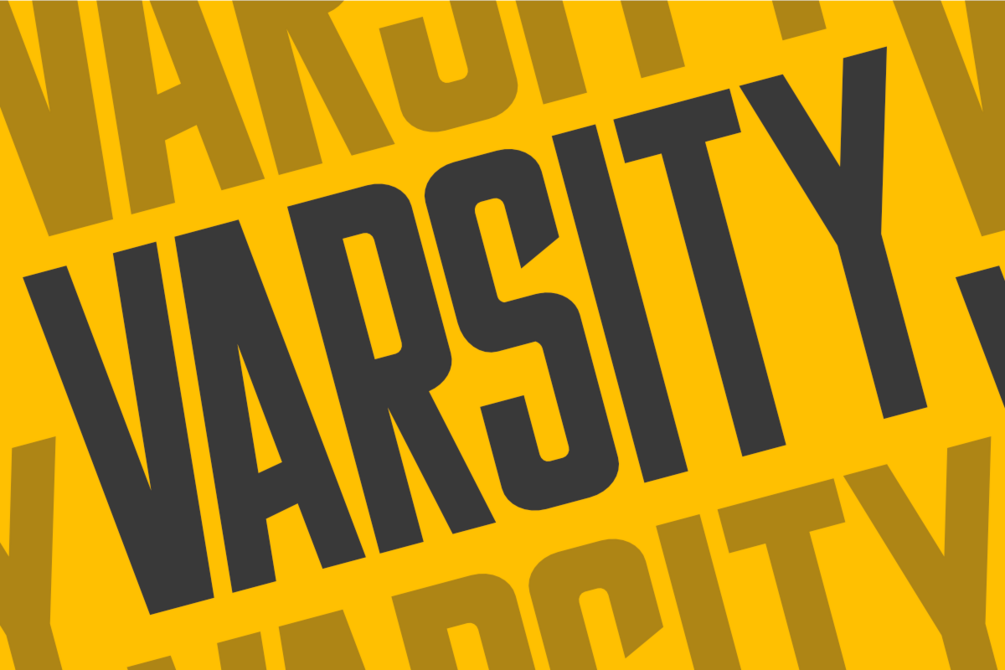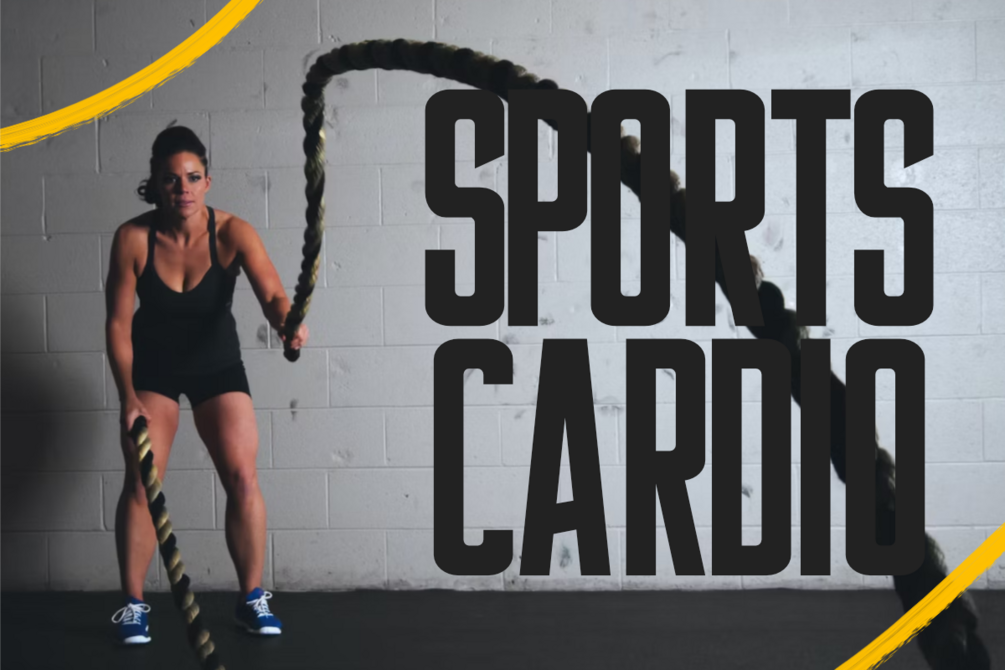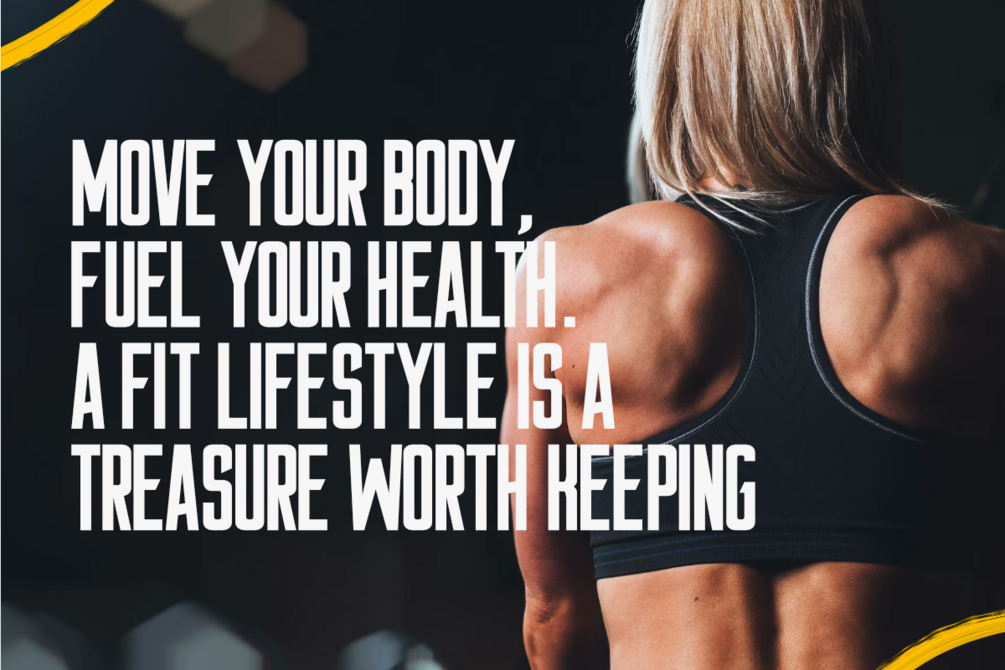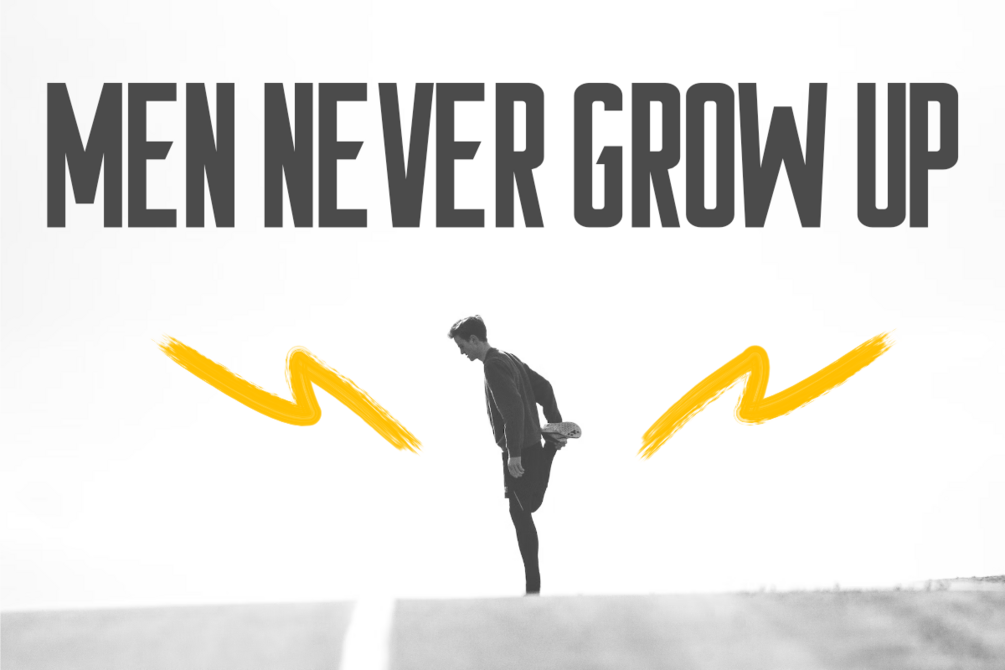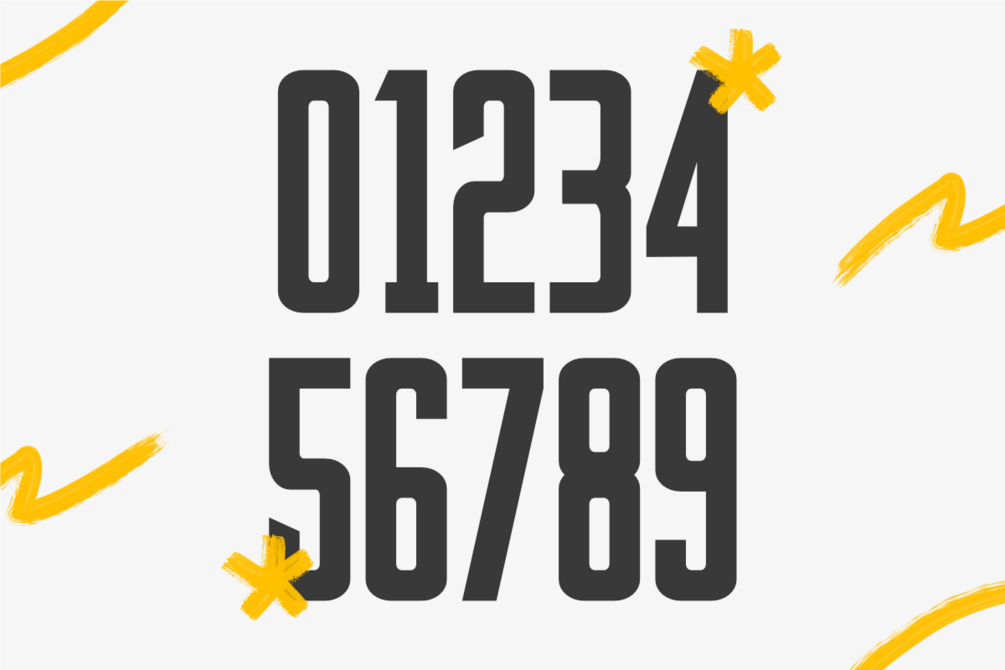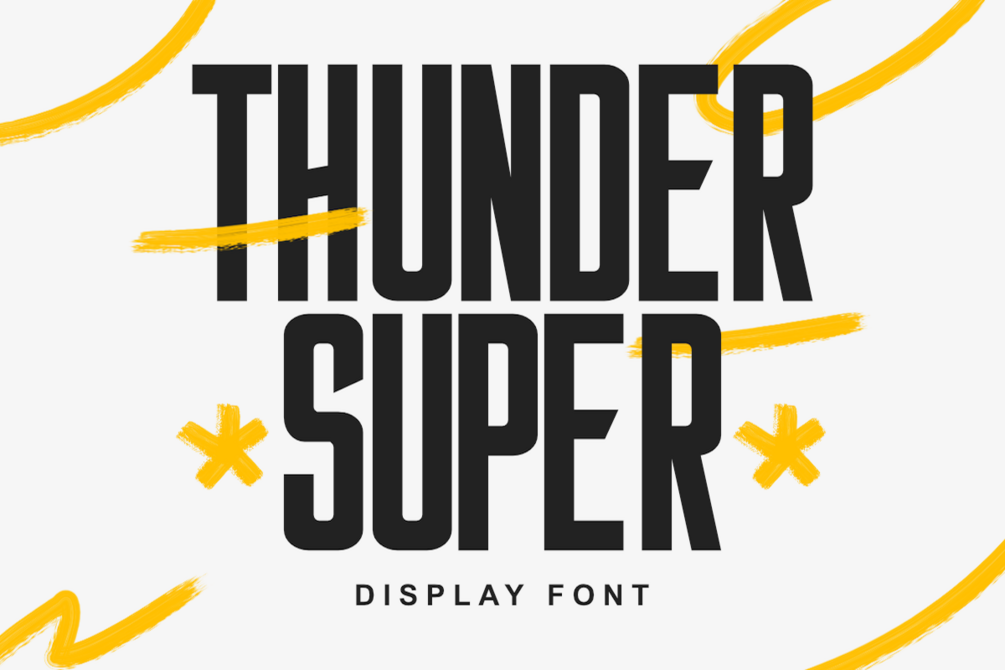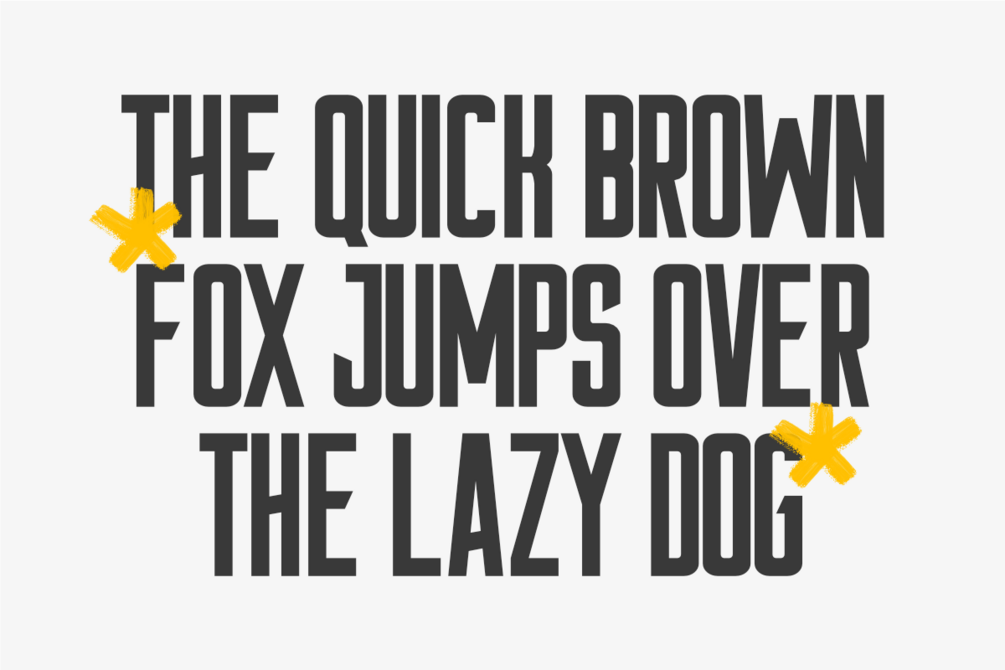
Thunder Super - Modern Sans Serif
Thunder Super is a sporty and modern bold display font. A font that is very suitable for crafts, labels, quotes, SVG files, decorations, labels, logotypes, book covers, t-shirts, web, posters, stickers, wall art, or other ideas. A font suitable for Crafters and Graphic Designers. This font is also suitable for Social Media. Compatible with various tools such as Photoshop or Silhouette Design Project.